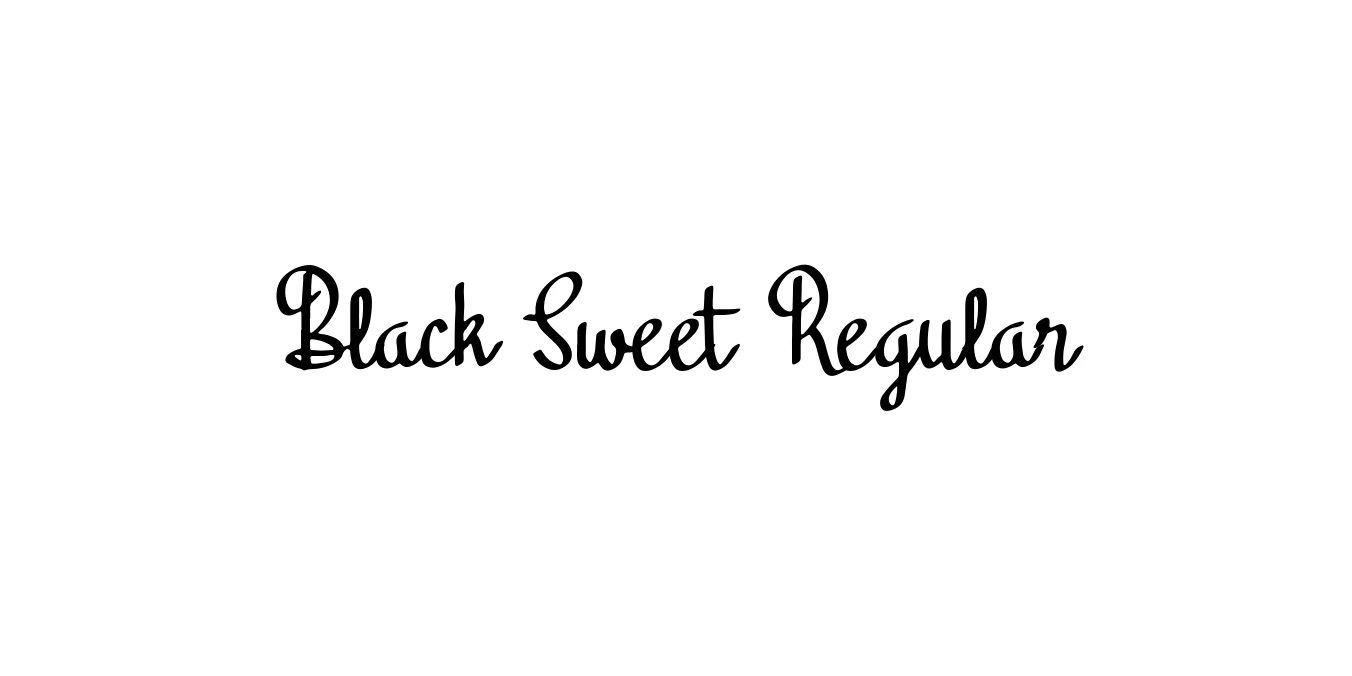
Black Sweet Regular
Designed by Sronstudio
Black Sweet Regular is a sophisticated and fluid script typeface created by Sronstudio. This font captures the essence of natural handwriting, featuring smooth curves and elegant connections that bring a sense of authenticity and warmth to any design project. Its versatile nature allows it to transition seamlessly between formal contexts and casual, artistic displays.
The font is particularly well-suited for high-end branding, promotional materials, and artistic layouts. With its handcrafted aesthetic and rhythmic flow, Black Sweet Regular provides designers with a powerful tool for creating visually striking headers, stationery, and personalized invitations that demand attention while maintaining a polished and professional look.
Black Sweet Regular Best Uses
Elegant choice for invitations, RSVP cards, and envelopes.
Creates a memorable and personal logo or signature style for creative businesses.
Perfect for expressive quotes, lifestyle imagery, and engaging Instagram stories.
Adds a premium, artisanal feel to boutique goods and luxury product labels.